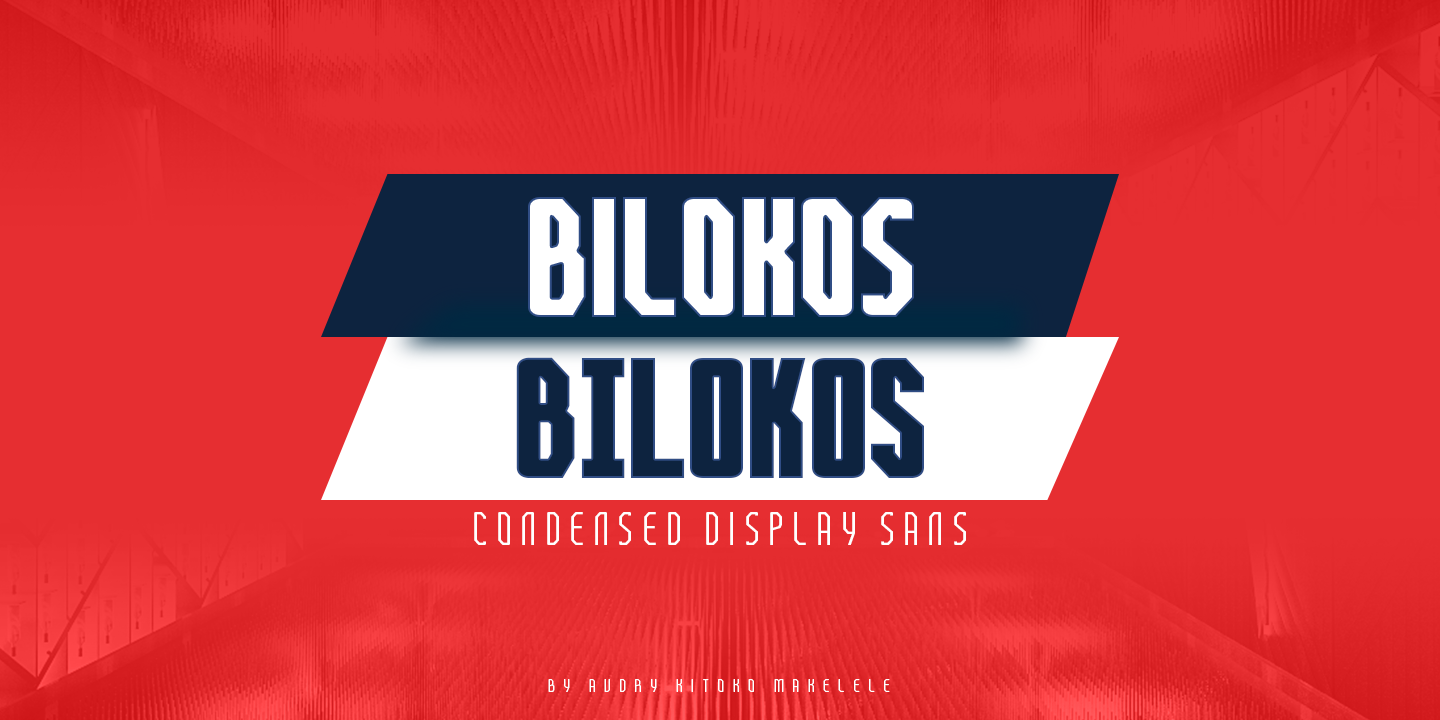
Bilokos Font Free Download – Bold and Timeless Typeface for Impactful Designs
Looking to make a strong statement with your typography? Bilokos Font Free Download is a bold and timeless typeface perfect for branding, headlines, posters, and digital media projects. Its robust letterforms and clean lines provide excellent readability and a confident presence.
Bilokos combines classic style with modern sensibilities, making it versatile for various design needs. Whether you’re creating logos, packaging, or editorial content, this font delivers a powerful and professional look.
Elevate your design projects with Bilokos — a font that stands out with strength and clarity.